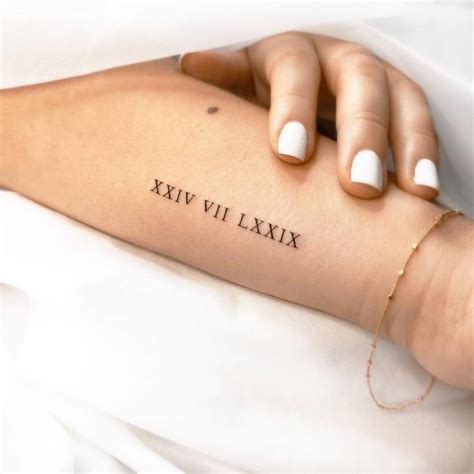
Roman Numeral Tattoo Font, Behind them are several smaller lines and a curved, intricate frame. See more ideas about roman numeral font, lettering alphabet, roman numeral tattoos.
1000+ ideas about roman numeral font on pinterest. The multi date roman tattoo. Roman numeral tattoos are a pretty popular pick for body art enthusiasts.
If you are looking to. 1000+ ideas about roman numeral font on pinterest. People can put their own individual slant on their roman numeral tattoos.
Justin bieber roman numeral tattoo. The multi date roman tattoo. I, ii, iii, iv, v, vi, vii, viii, ix, x. Here are some really cute roman numeral tattoos for your inspiration. Roman numerals available in windows and mac os x version.
See more ideas about roman numeral font, lettering alphabet, roman numeral tattoos. If you take a look at many novels written by famous authors, many use roman numerals as part of the chapter listing. As the name suggests, this tattoo is to pay tribute to someone who has recently passed away. The font and style of the roman numerals make.
Justin bieber roman numeral tattoo. You can get it inked in black and grey. This tattoo represents multiple important dates in an artistic form. Roman numerals tattoo fonts styles which have uniques and appealing fonts styles turn into a decent decision to communicated in the piece of body. Some used stylish fonts, some add stars, scrolls, flowers or different meaningful.
When you are looking roman numerals tattoo fonts styles, you will discover numerous sort of roman textual style, for example, roman sd, antiquated nerd, dalek, diogenesis, greek house, augustus, caesar, poseidon, marathon, capitalis typoasis, adonais, archeologicaps, gelio, dominican, achilles, spqr, elektra, atene, empiric roman, rosart , and a. Roman numerals available in windows and mac os x version. Impressive roman.
The font and style of the roman numerals make it more prominent and attractive. If you are looking to. You can add roman letters too to your date tattoo design as shown here. This number system was invented in ancient rome, and is used today for things like sporting events, or a. This design will have a date in roman.
Roman numeral tattoos are a pretty popular pick for body art enthusiasts. Roman numeral tattoo on ribs. This design will have a date in roman numerals, along with a foot and handprint. This tattoo represents multiple important dates in an artistic form. People can put their own individual slant on their roman numeral tattoos.
Most often, roman numeral tattoo font are used as part of official introductions, such as numbered passages in a book or chapters. As the name suggests, this tattoo is to pay tribute to someone who has recently passed away. Roman numeral tattoo on ribs. I, ii, iii, iv, v, vi, vii, viii, ix, x. This design will have a date.